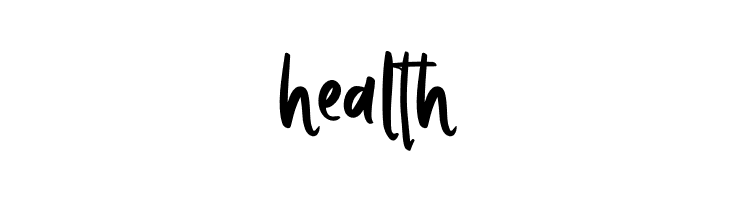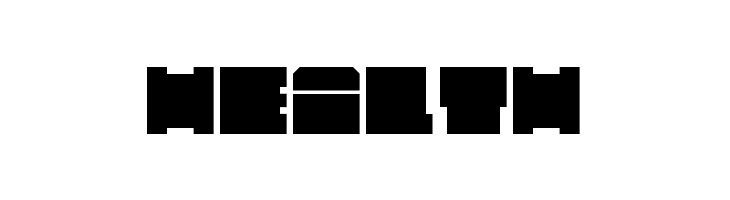
A bold, dynamic script font with a playful and energetic style.
A bold, geometric font with a strong, modern presence.
A playful, blocky font with each character enclosed in a square.
A playful, handwritten font with bold, energetic strokes.
A playful, bold font with thick, rounded characters ideal for creative projects.
A bold, angular font with a graffiti-inspired, dynamic style.
A bold, graffiti-inspired font with sharp, angular edges and a 3D effect.